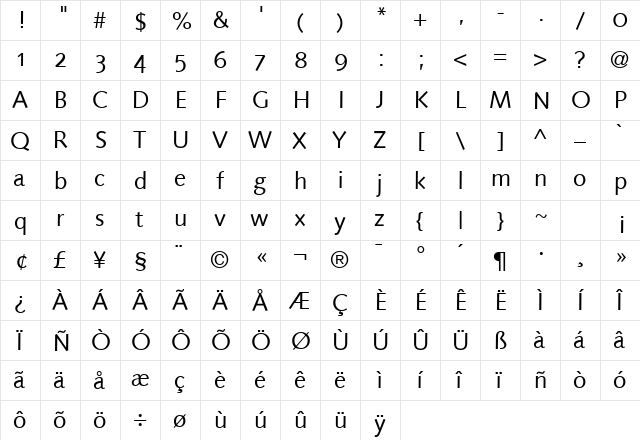
Unisyn Normal
Design Context for Unisyn Typeface
Unisyn is a composed and adaptable typeface that performs quietly and consistently across a wide range of design contexts.